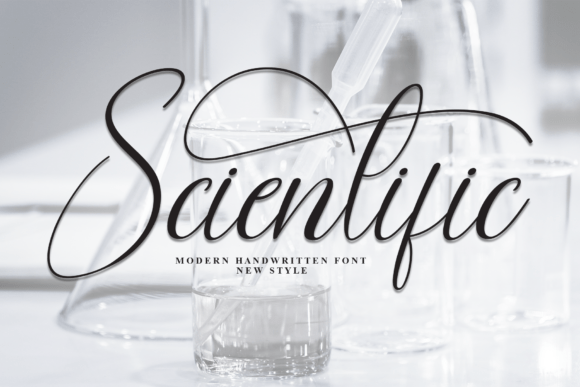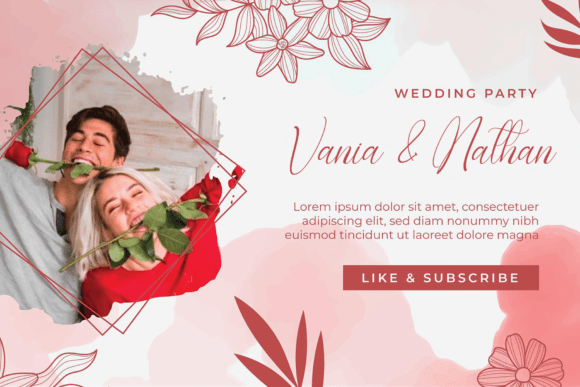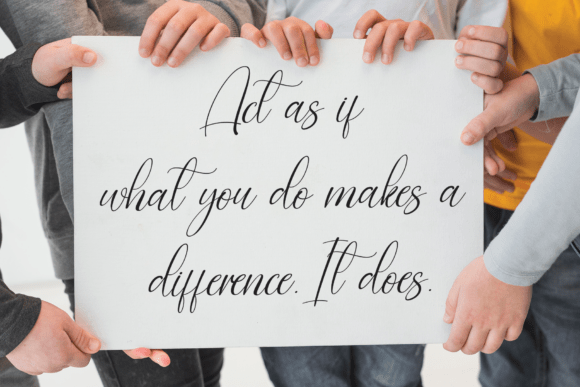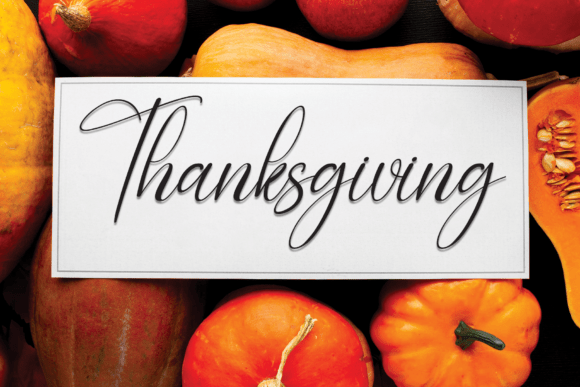
Scientific Font
About the Scientific Font
We are excited to introduce Scientific Font, a must-have typeface for any serious designer. Add a touch of sophistication to your designs with this Elegant Script Font
– a graceful, flowing typeface that’s perfect for creating romantic and luxurious visuals. With beautiful beginning and ending swashes, this script font adds an extra flourish to wedding invitations, branding projects, social media graphics, and handwritten quotes. Its stylish curves and decorative alternates make every word look effortlessly refined and custom-made.
Scientific Font Usage Examples
Scientific Font Example